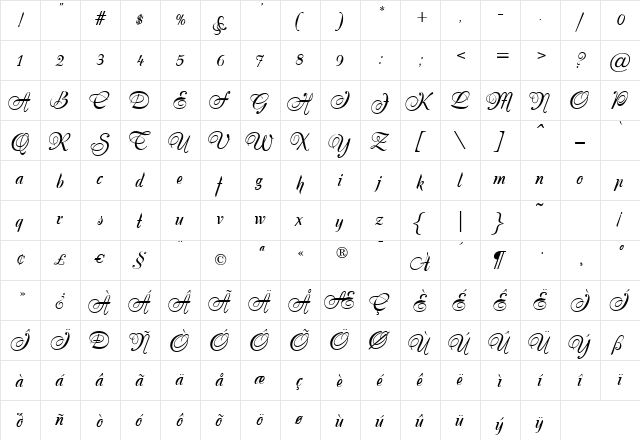
PrimroseJF Regular
Design Context for PrimroseJF Typeface
PrimroseJF is a composed and adaptable typeface that performs quietly and consistently across a wide range of design contexts.